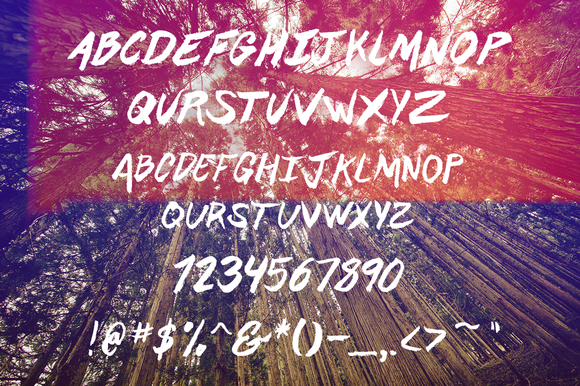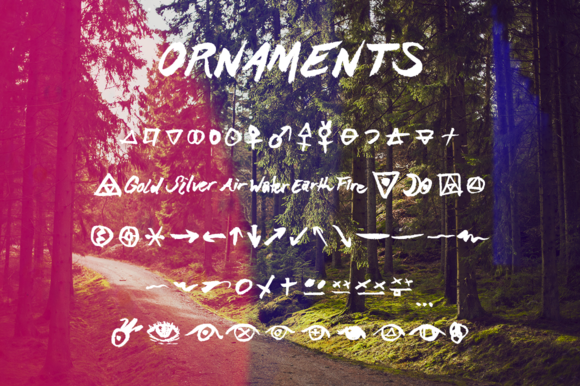
Marsh Hand Drawn Brush Font + Bonus
Marsh is a hand drawn font. It was made with a brush pen and I tried to make the brush strokes very pronounced and grungy. There are no lower case letters just caps and small caps. Also included is another font of just symbols and other glyphs which are based on alchemical symbols or just scribbles.